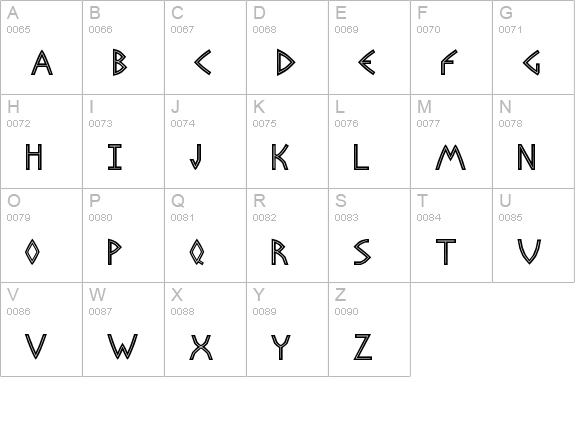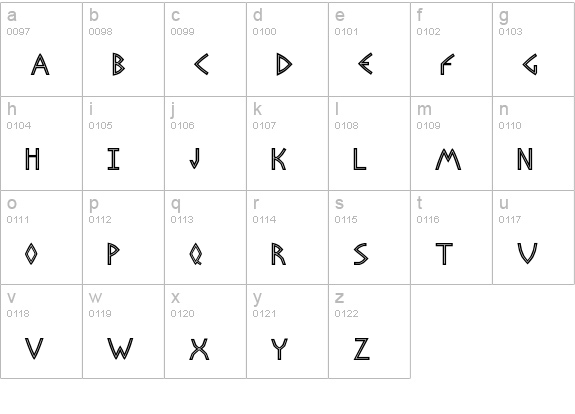
Basileus Font Details
Basileus font is a stunning display typeface that exudes elegance and sophistication. With its sleek lines and graceful curves, Basileus is perfect for adding a touch of luxury to your design projects. Whether you're working on branding, invitations, or editorial designs, this font will make your text stand out with its timeless appeal. What's even better is that Basileus font is available for free download at FontsMarket.com. Now you can elevate your designs without breaking the bank. Don't miss out on the opportunity to add this exquisite font to your collection and bring a touch of class to your projects. Download Basileus font today and let your creativity shine!